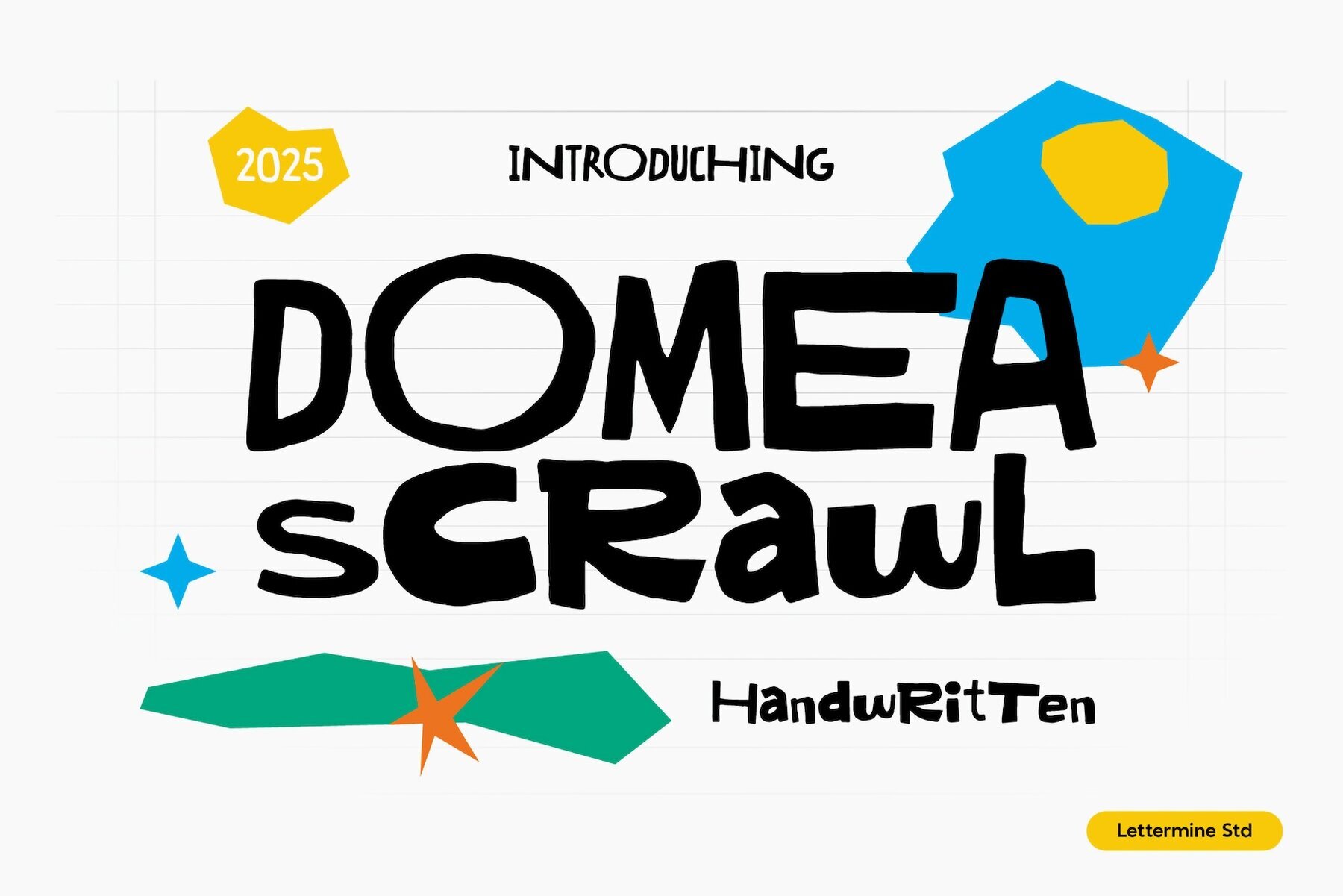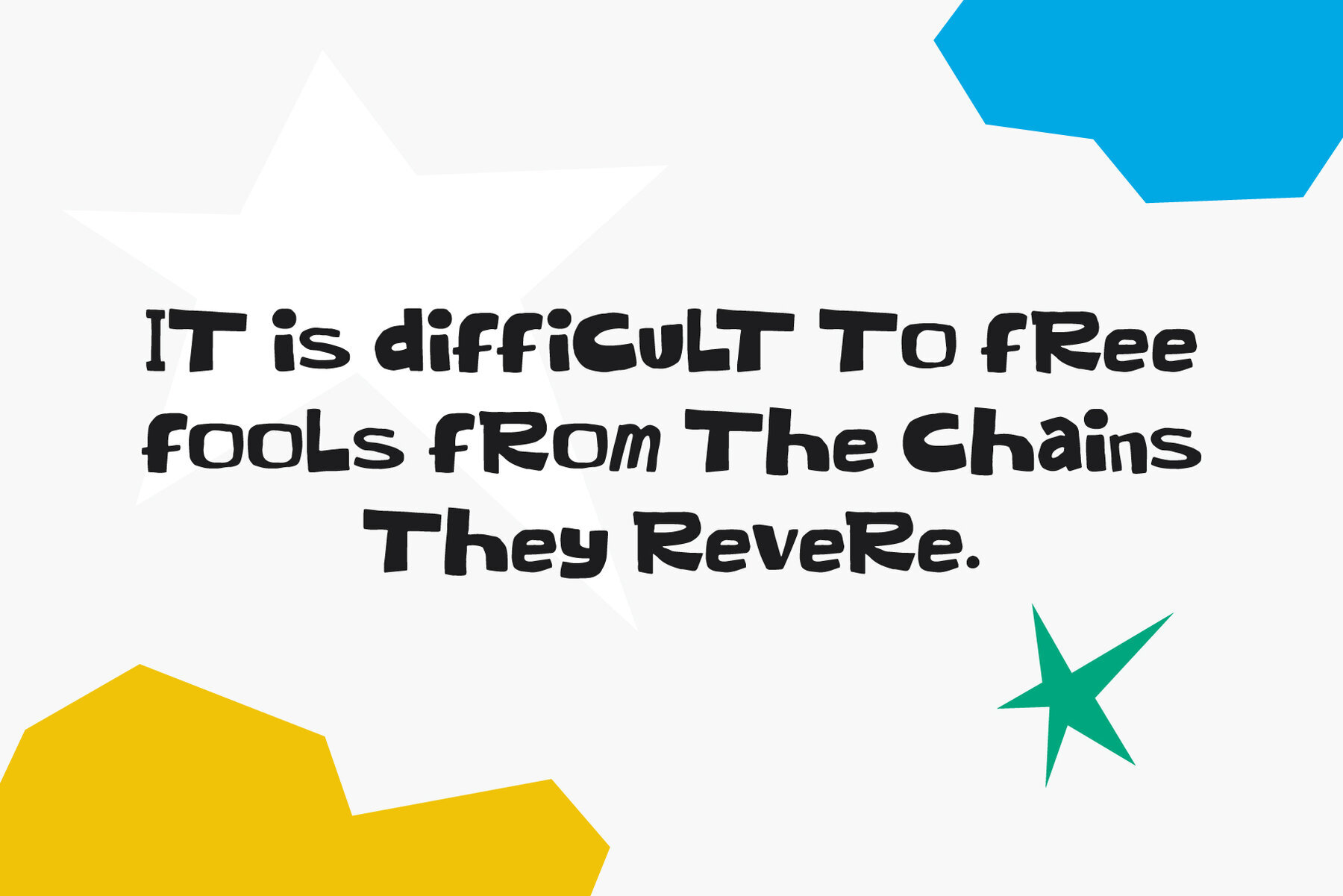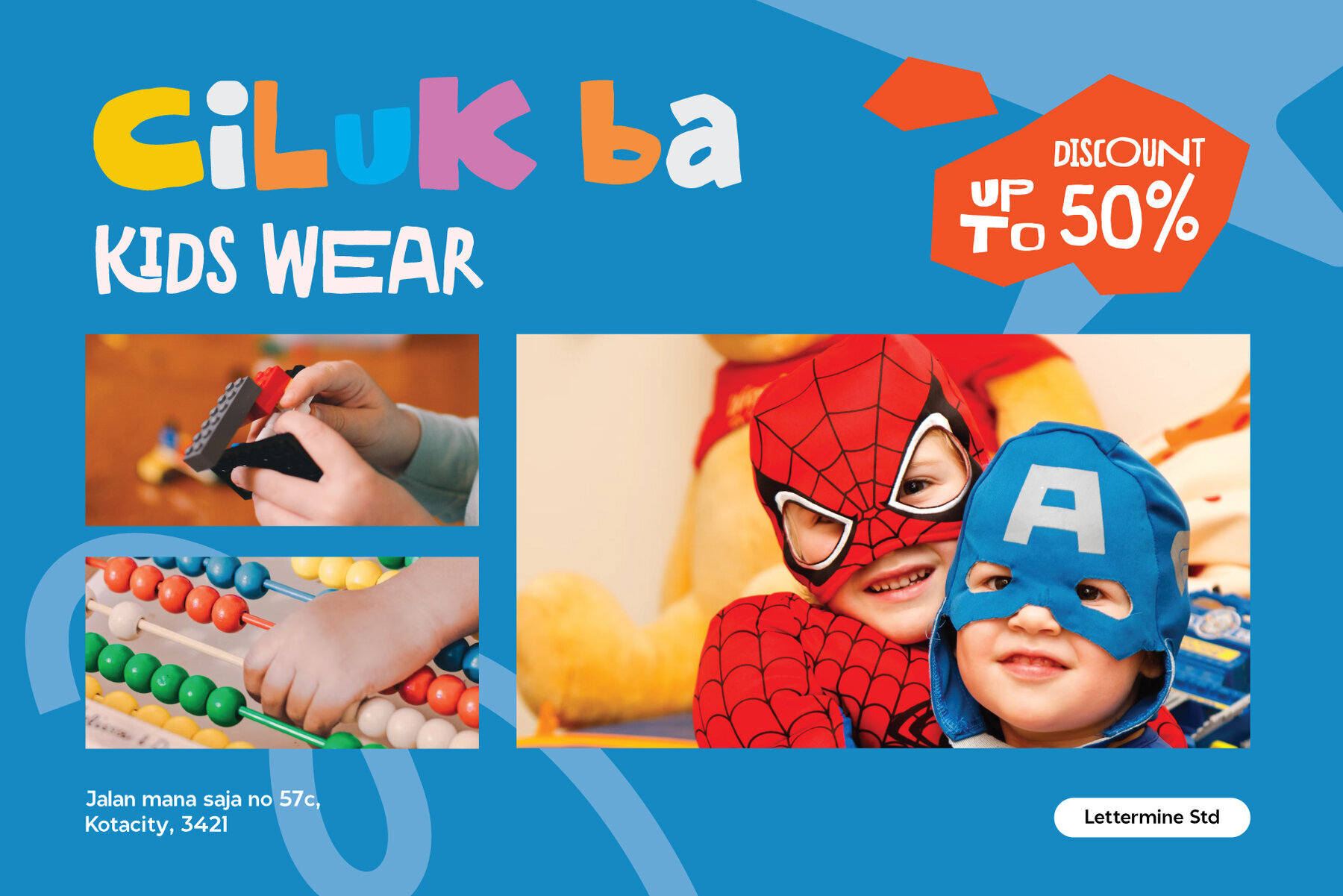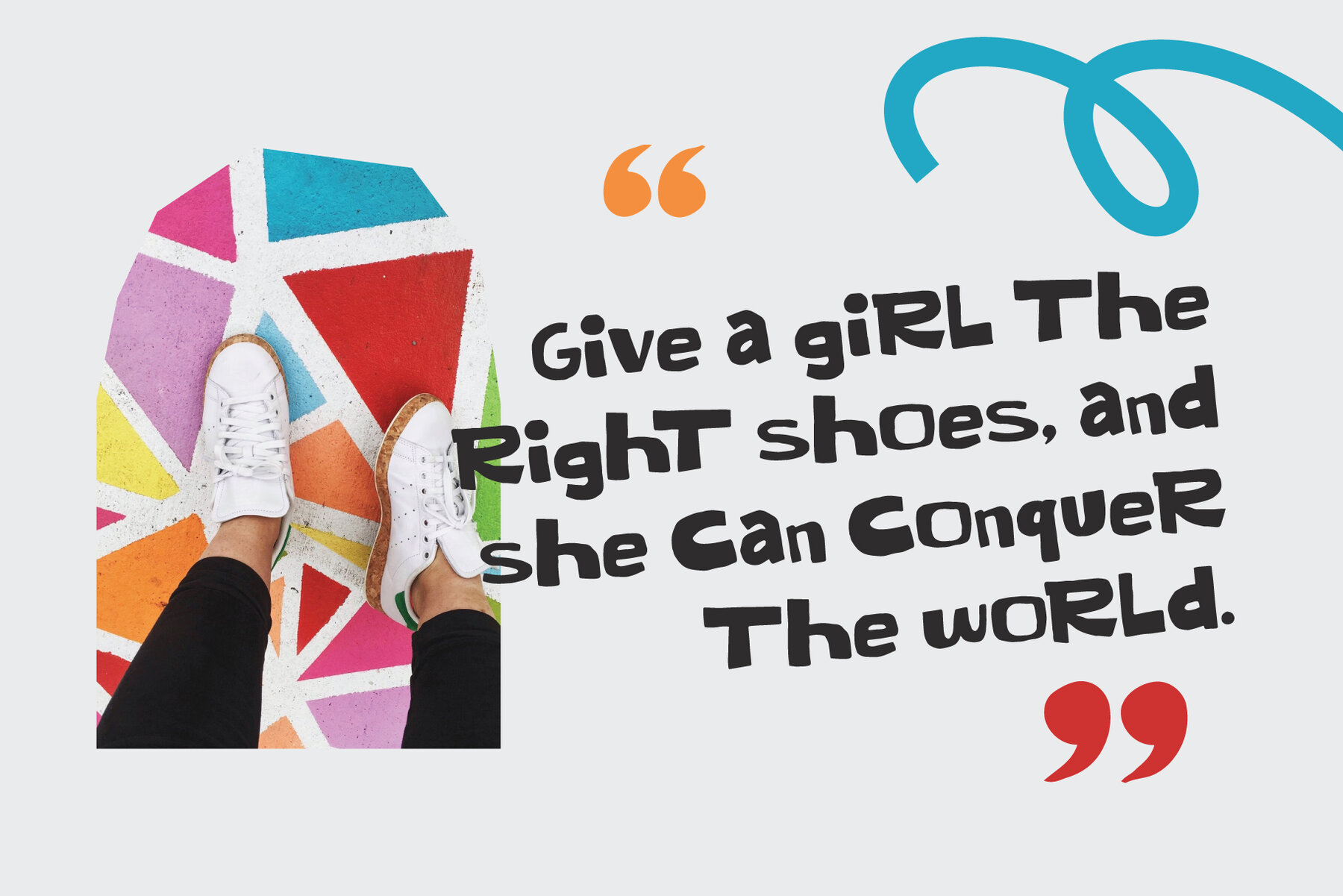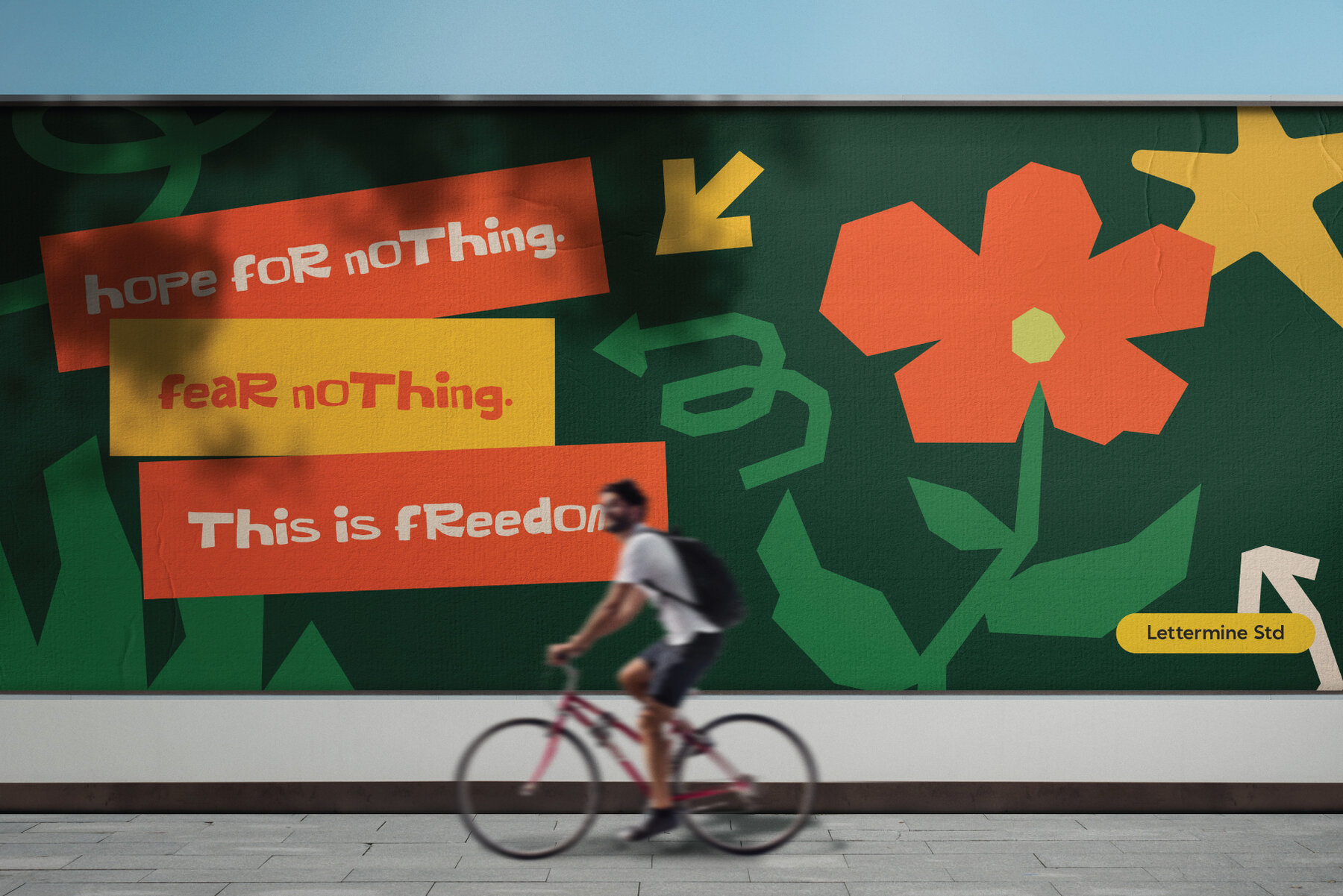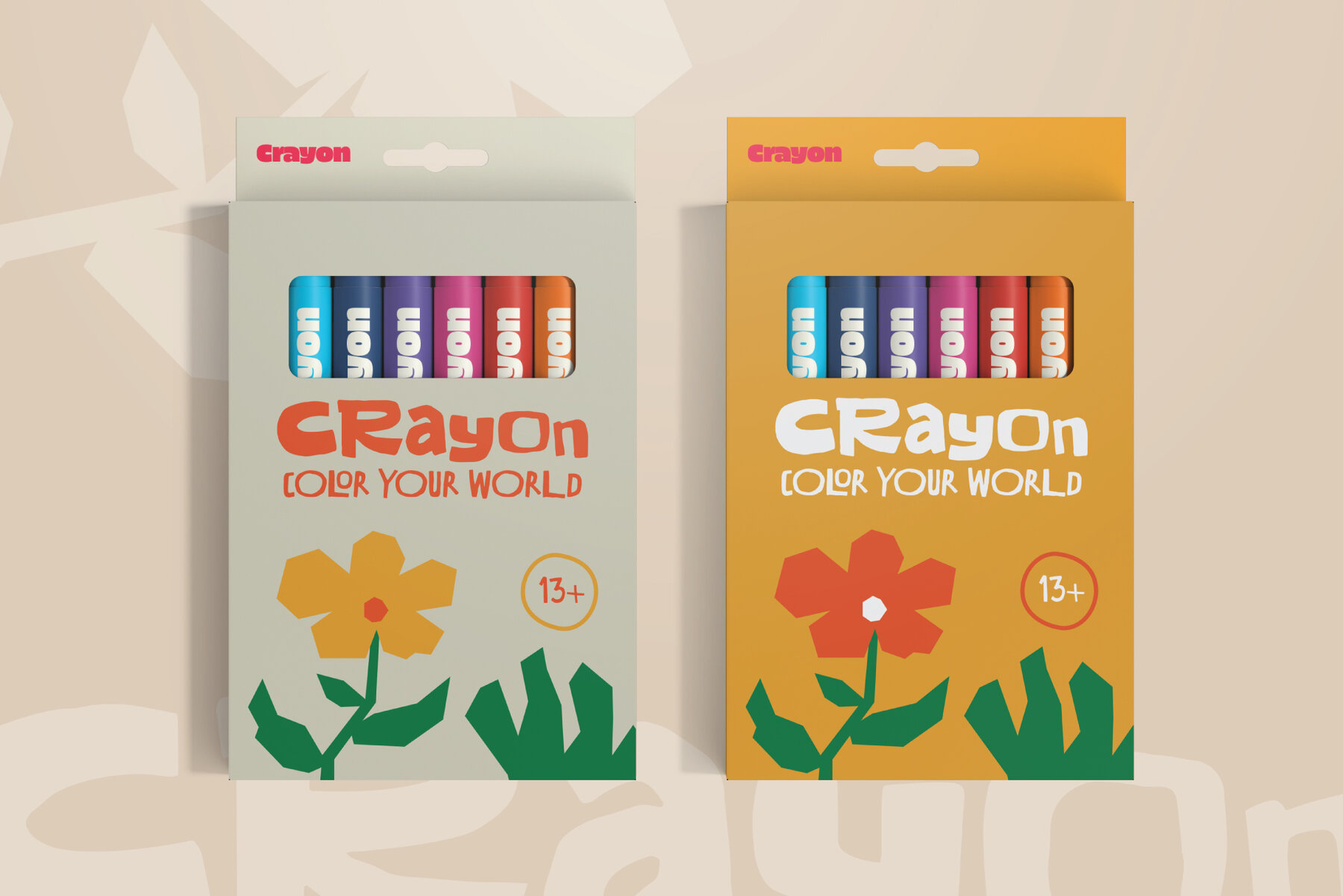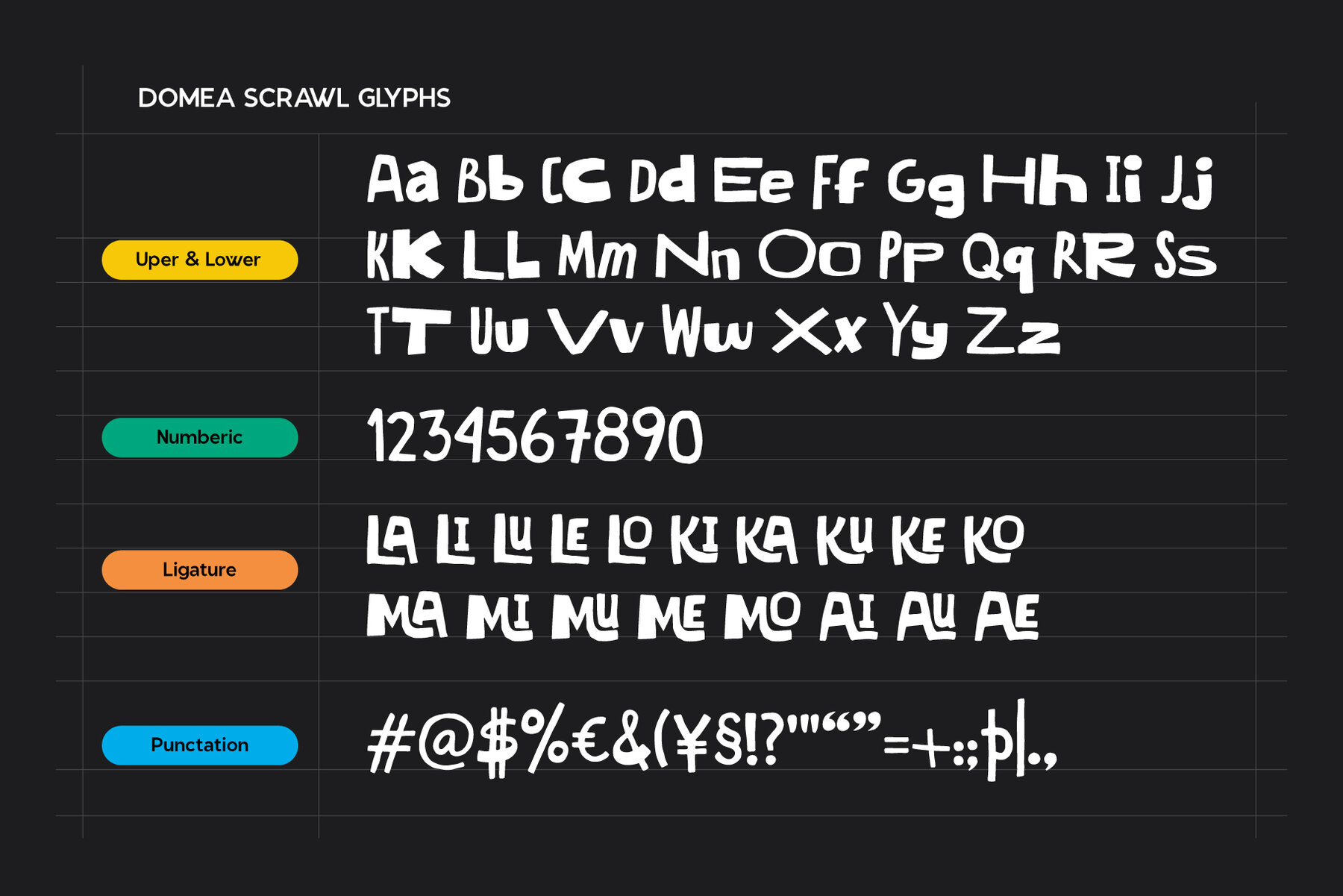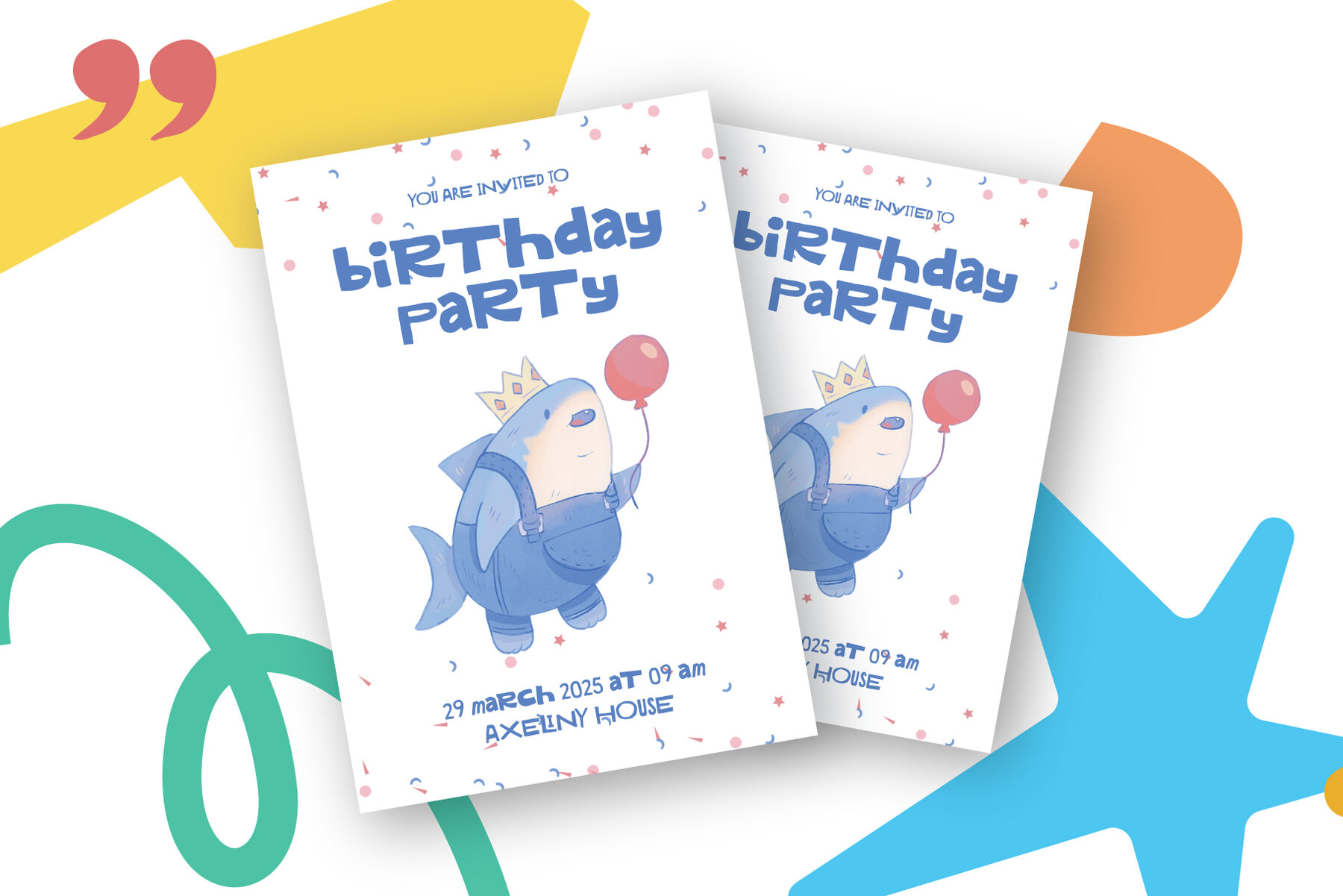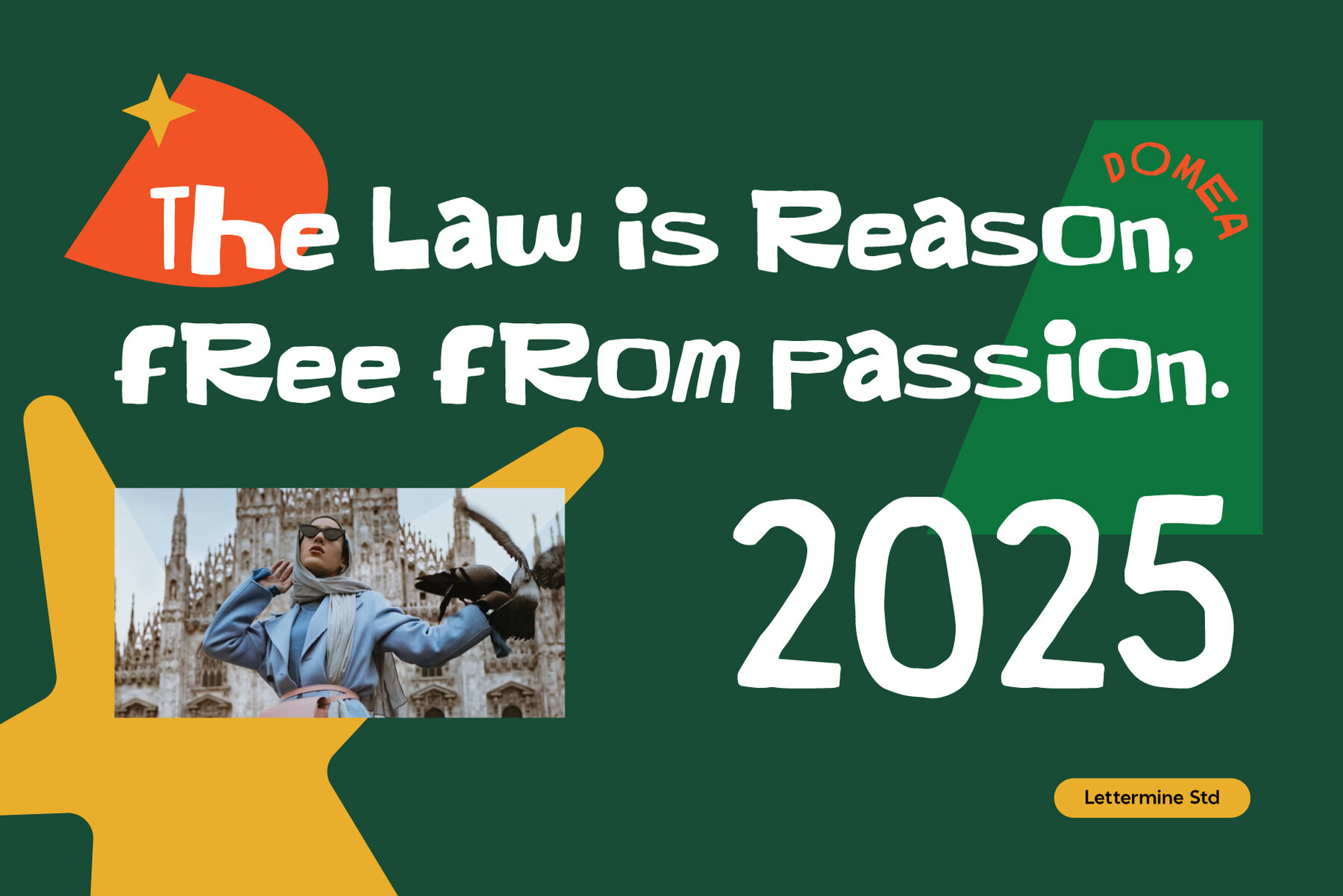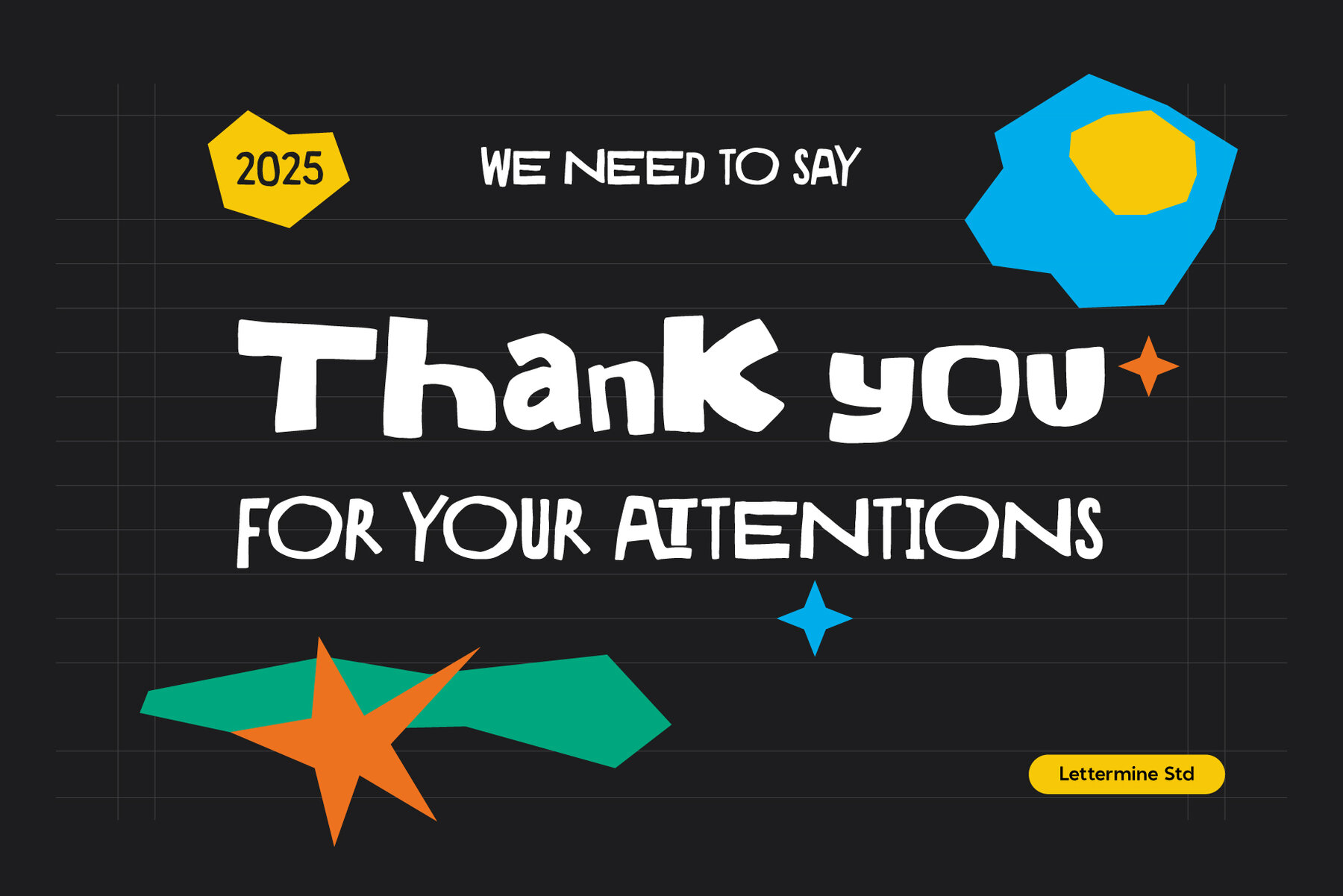
Domea Scrawl Font
Domea Scrawl Regular
Domea Scrawl brings an inviting, handwritten charm to your projects. With its casual letterforms and irregular strokes, it evokes the essence of genuine handwriting. This font is ideal for creating notes, journals, or quotes that resonate with a human touch. Domea Scrawl is perfect for infusing a personal, crafted feel into lifestyle branding, social media, and narrative visuals. Each letter exudes warmth and individuality accustomed to heartfelt communication.Domea Scrawl: Capturing Authentic Handwriting